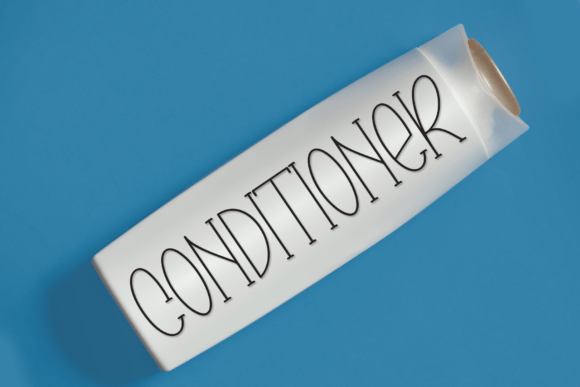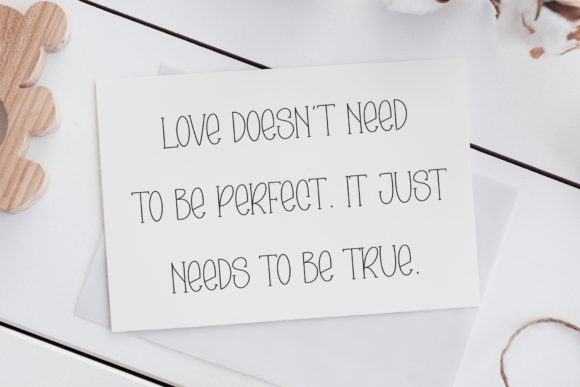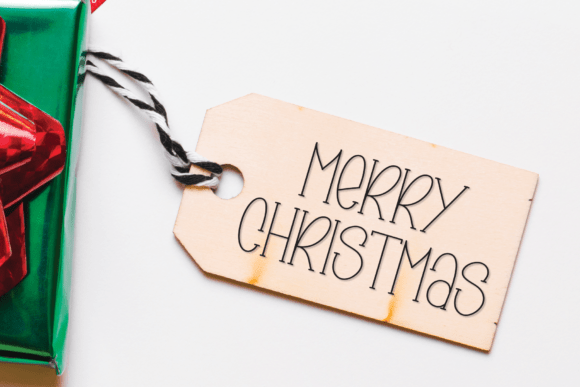
Introduction to Jungleland Font
As a designer, you know that the perfect font can make all the difference in bringing your creative project to life. And what’s more magical than stumbling upon a font that transports you to a whimsical world of wonder? For me, that moment came when I discovered the enchanting Scriptina, a handcrafted display font that exudes an unmistakable charm. With its soft, alluring tone and vanguard creativity, Scriptina is the perfect addition to any design arsenal.
As I delved deeper into the world of Scriptina, I realized that its value lies not just in its aesthetic appeal, but also in its versatility. Whether you’re creating a personalized wedding invitation, a spell-binding card, or a design that requires a dash of whimsical charm, Scriptina is the perfect resource. And the best part? It’s available for free download, making it an accessible high-quality design resource for designers of all levels.
So, what makes Scriptina stand out from the crowd? Its ability to harmoniously blend creativity with familiarity, making it a seamless addition to any design. And with a transparent background, you can easily integrate it into your creative project without any hassle. In this article, we’ll take a closer look at the captivating magic of Scriptina, and why it’s a valuable addition to any designer’s toolkit.
Key Features of Jungleland Font
- High-quality design resource ideal for creative projects, such as illustrations, graphics, and more.
- Unique, hand-drawn style with intricate details and textures, adding a touch of personality to any design.
Honest Review: Jungleland Font
I recently had the opportunity to work with the Jungleland Font, and I must say it’s a unique addition to any design project. The font’s playful and adventurous vibe makes it perfect for creative projects that need a touch of excitement.
- ✨ High-quality design: The font is well-crafted, with smooth lines and a clear, readable structure.
- ✨ Versatility: Jungleland Font is suitable for a wide range of creative projects, from posters to social media graphics.
- ⚠️ Limited character set: The font doesn’t include a comprehensive character set, which may be a problem for designers working with non-English languages.
Overall, I think the Jungleland Font is a great addition to any design resource library. While it has its limitations, its unique style and high-quality design make it a valuable asset for designers working on creative projects.
How to Use Jungleland Font
Tips for Getting the Most Out of Jungleland Font
For the best results, use the Jungleland Font in conjunction with other design resources. Experiment with different font combinations and styles to create a unique look. Don’t be afraid to try new things and push the boundaries of your design.
Common Use Cases for Jungleland Font
The Jungleland Font is perfect for a variety of creative projects, including branding, marketing materials, and editorial designs. Its high-quality design makes it an excellent choice for any project where a professional look is required.